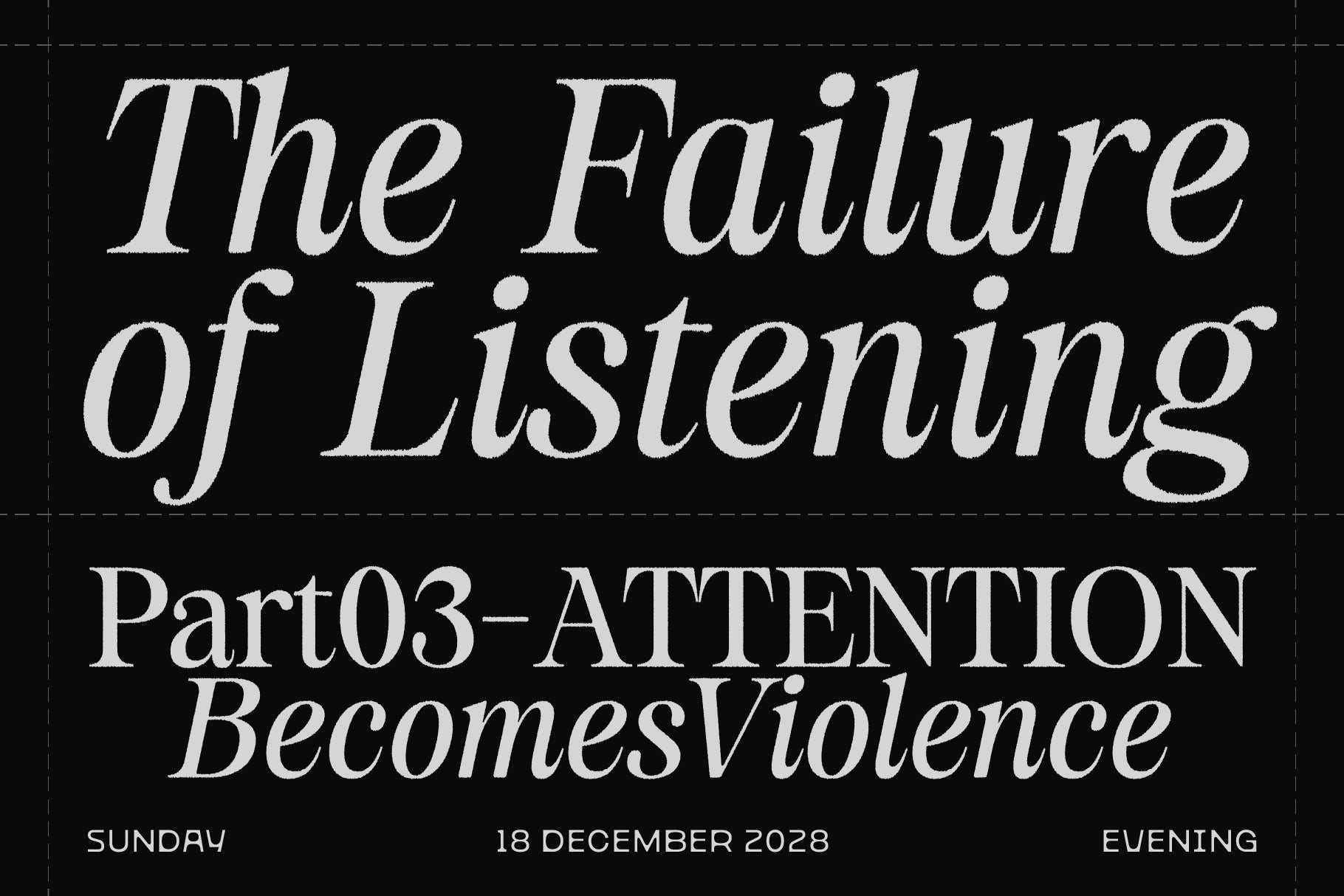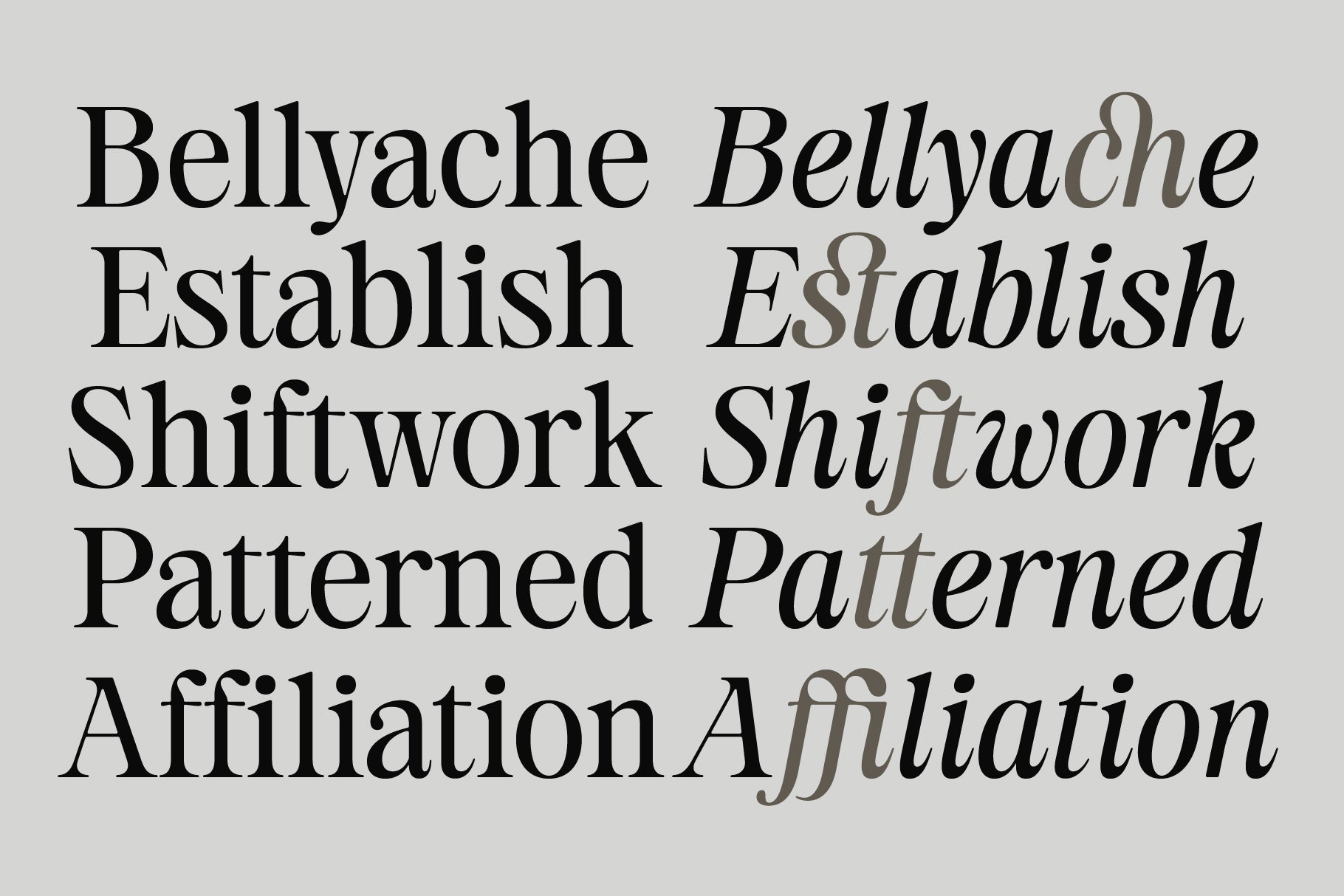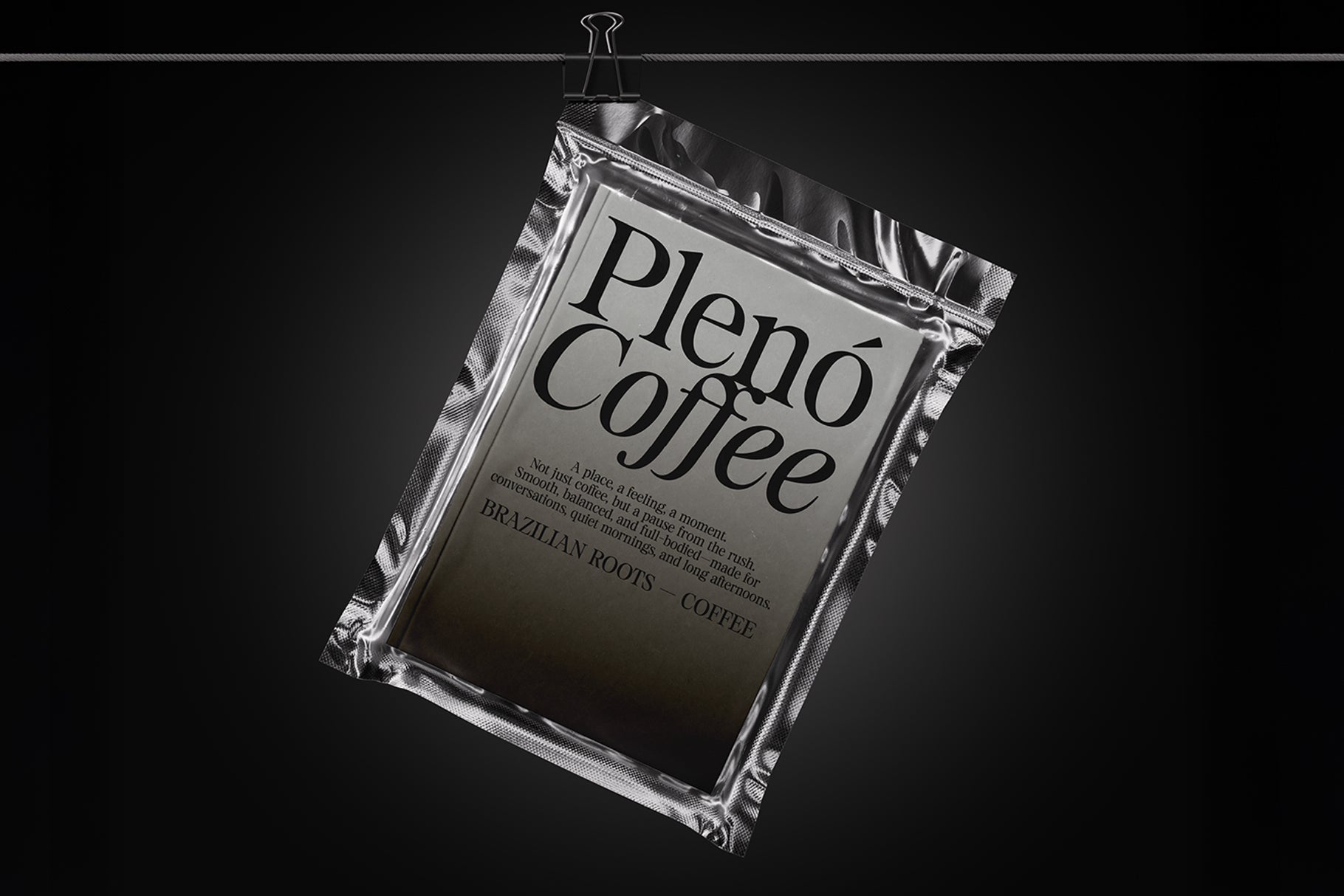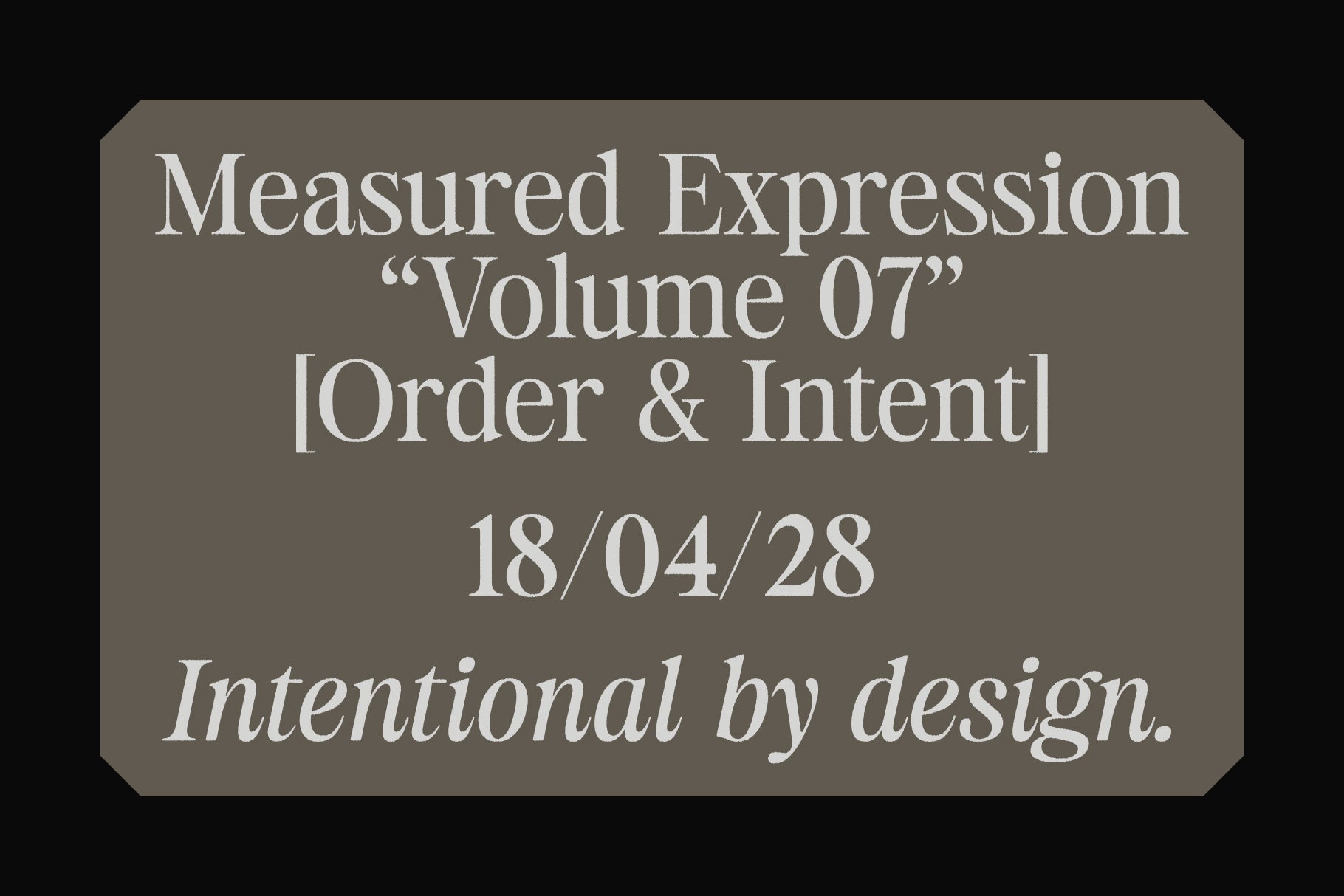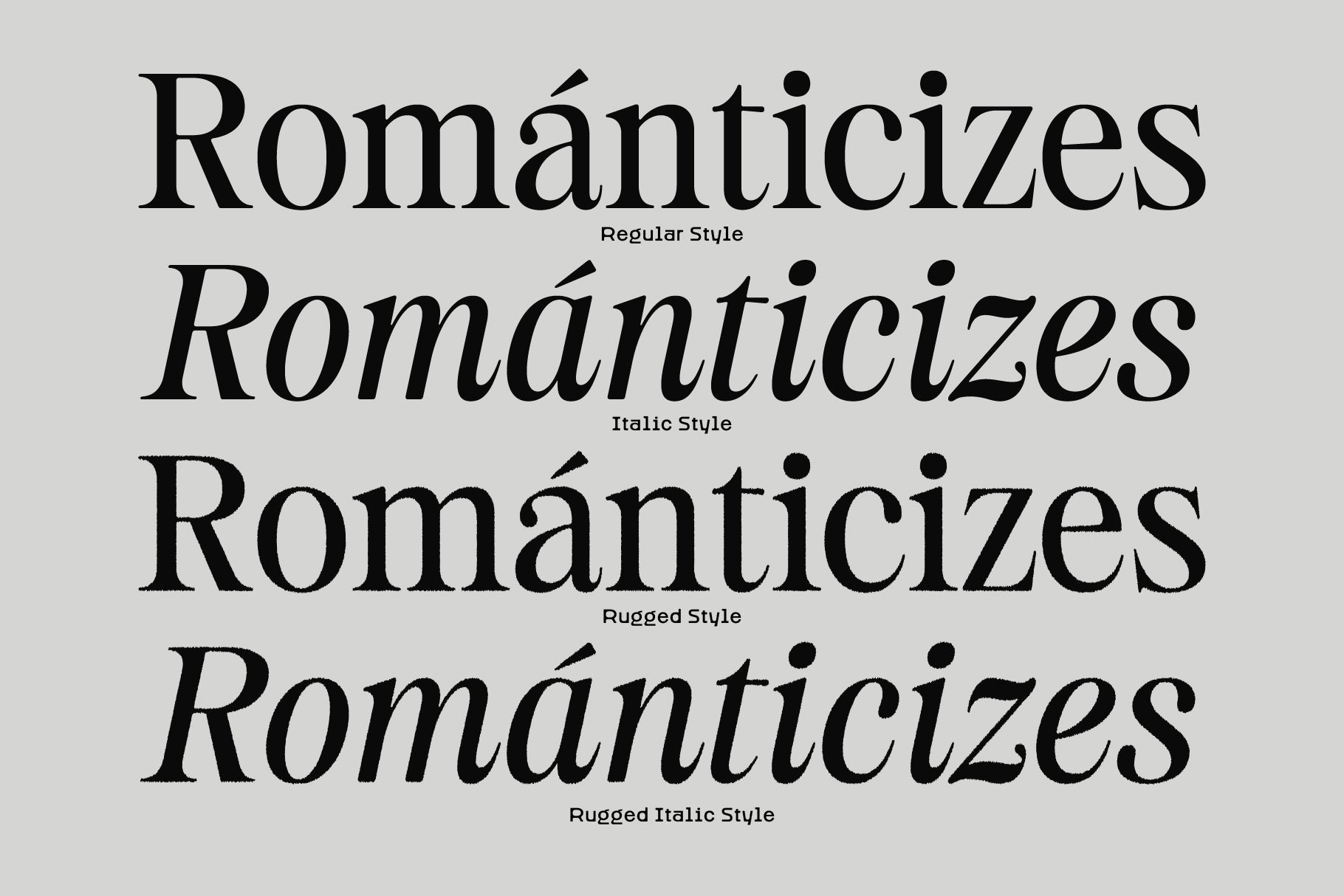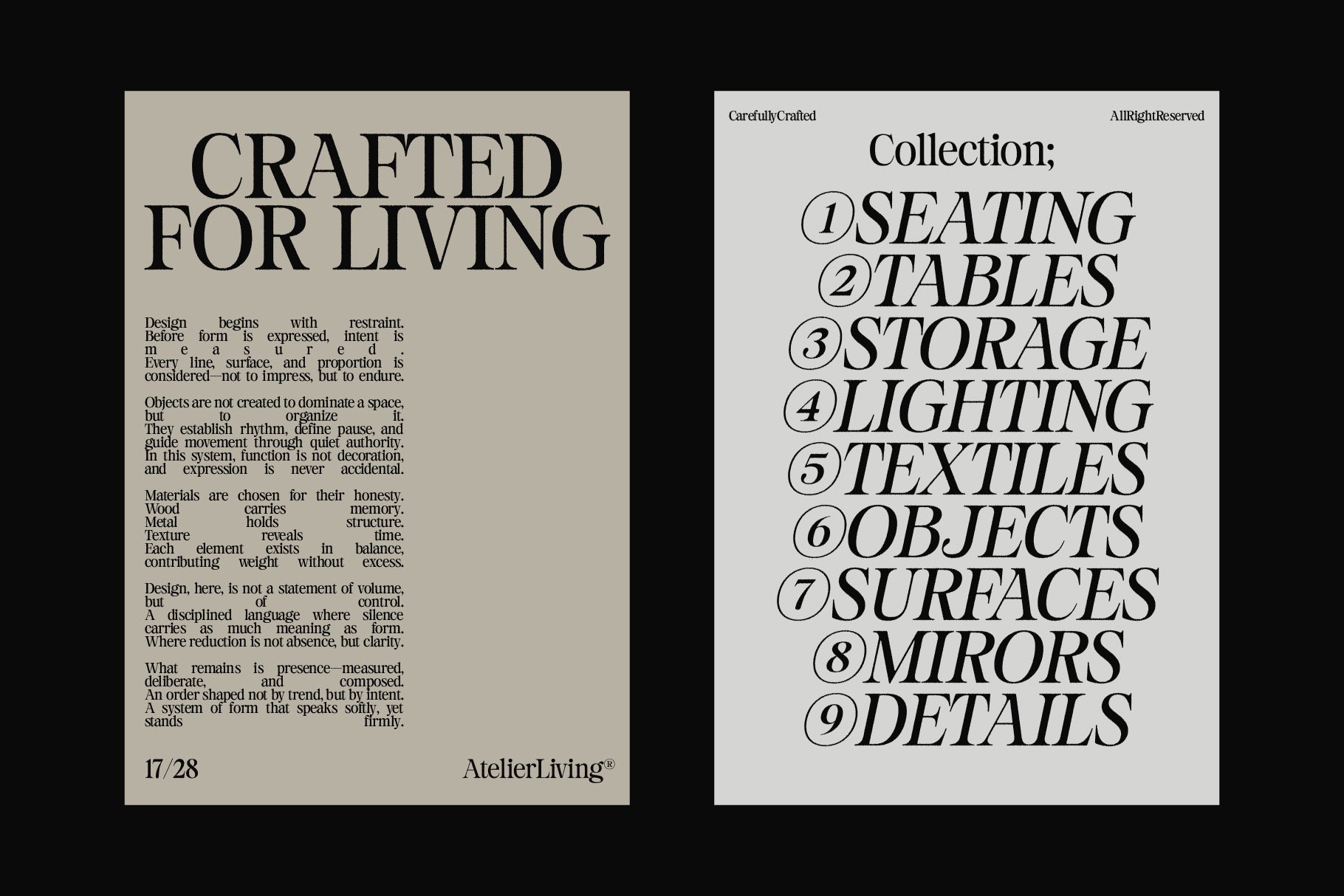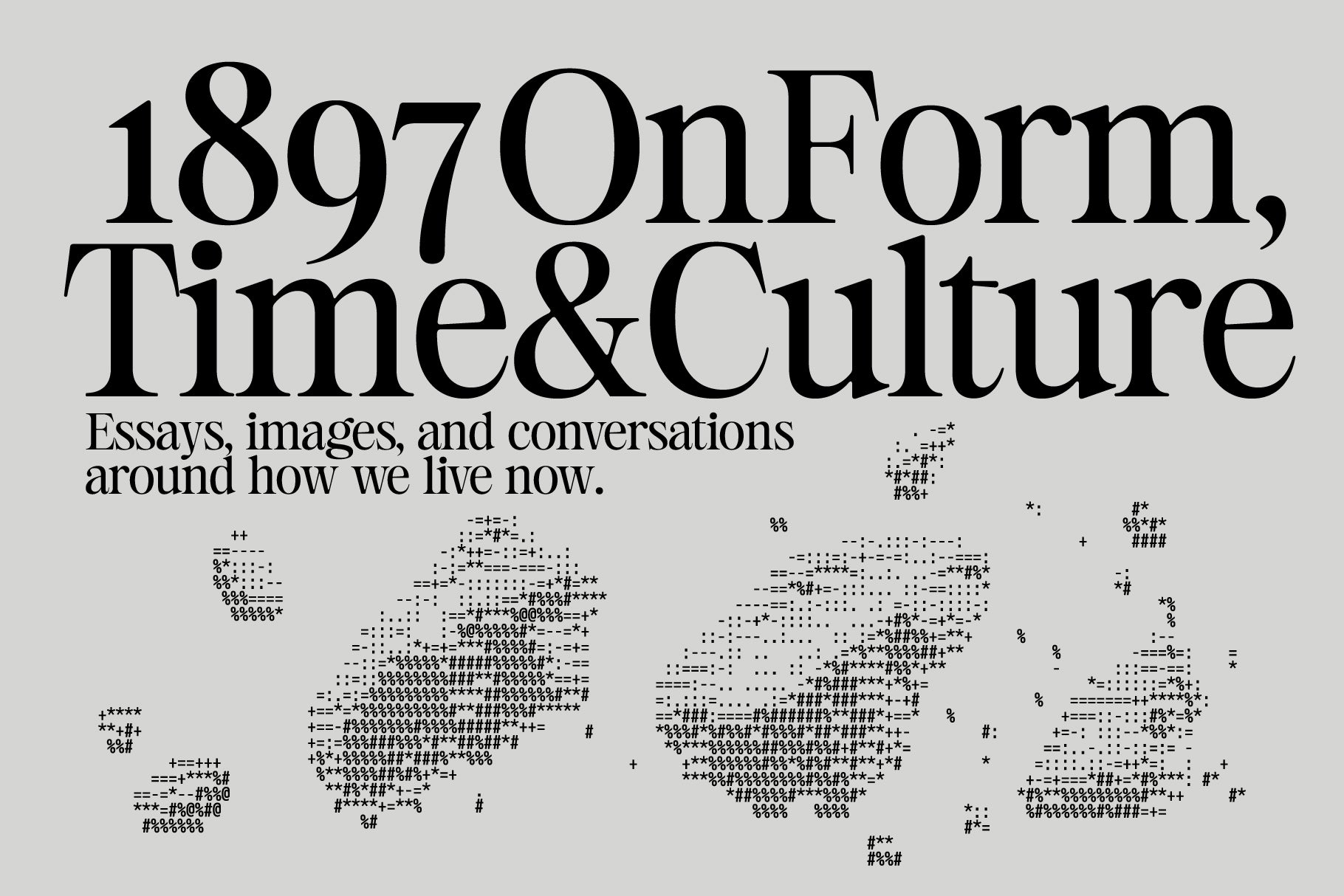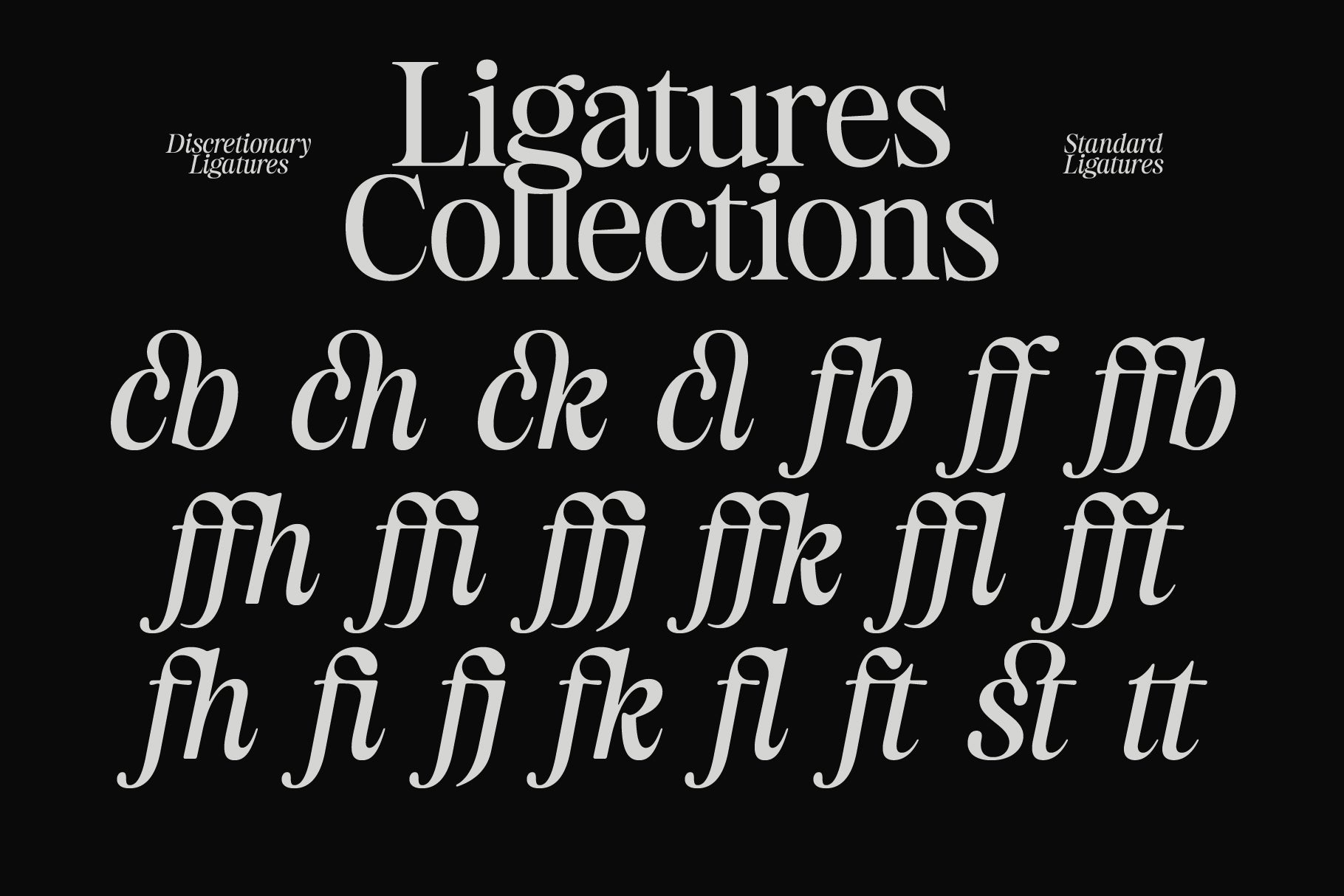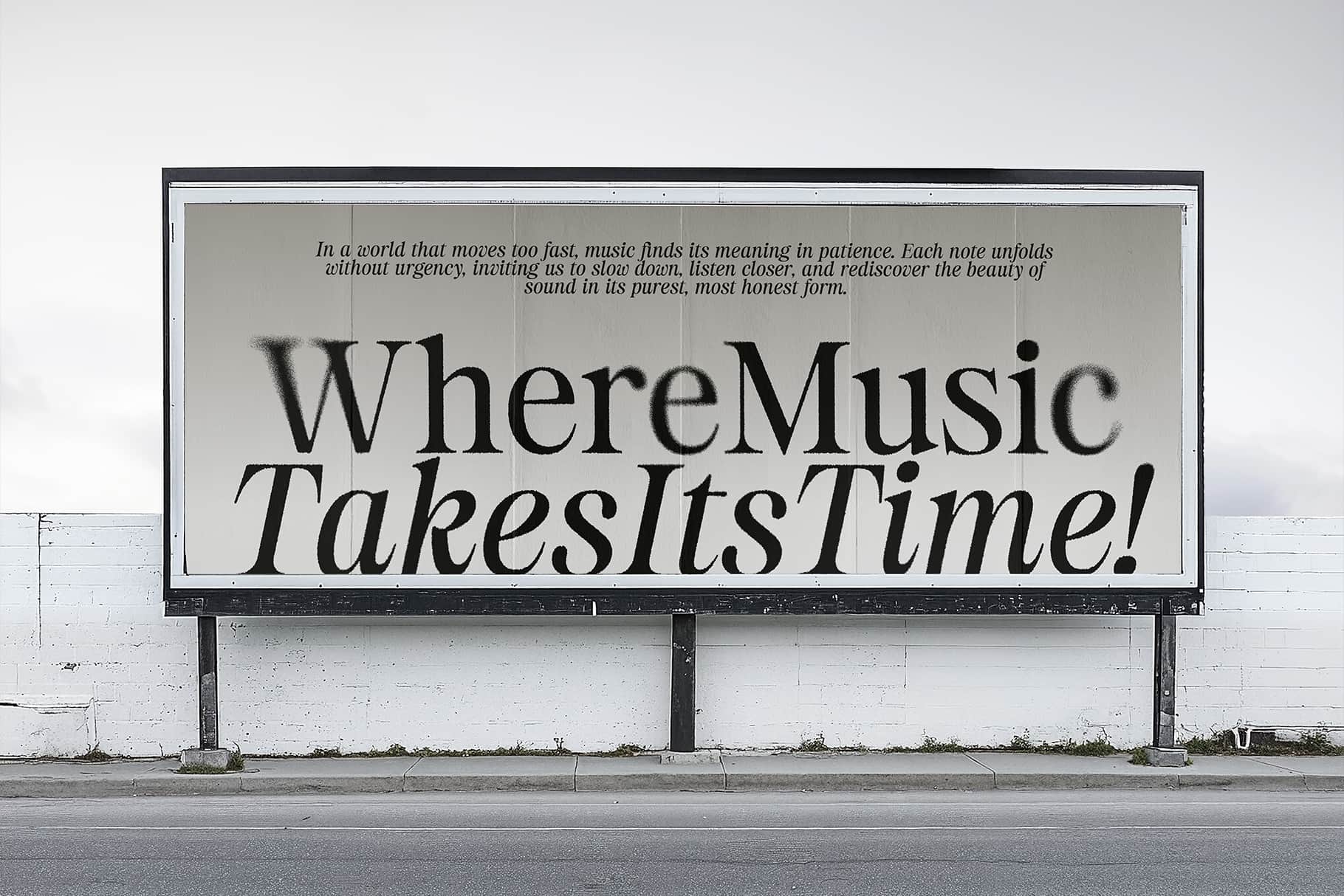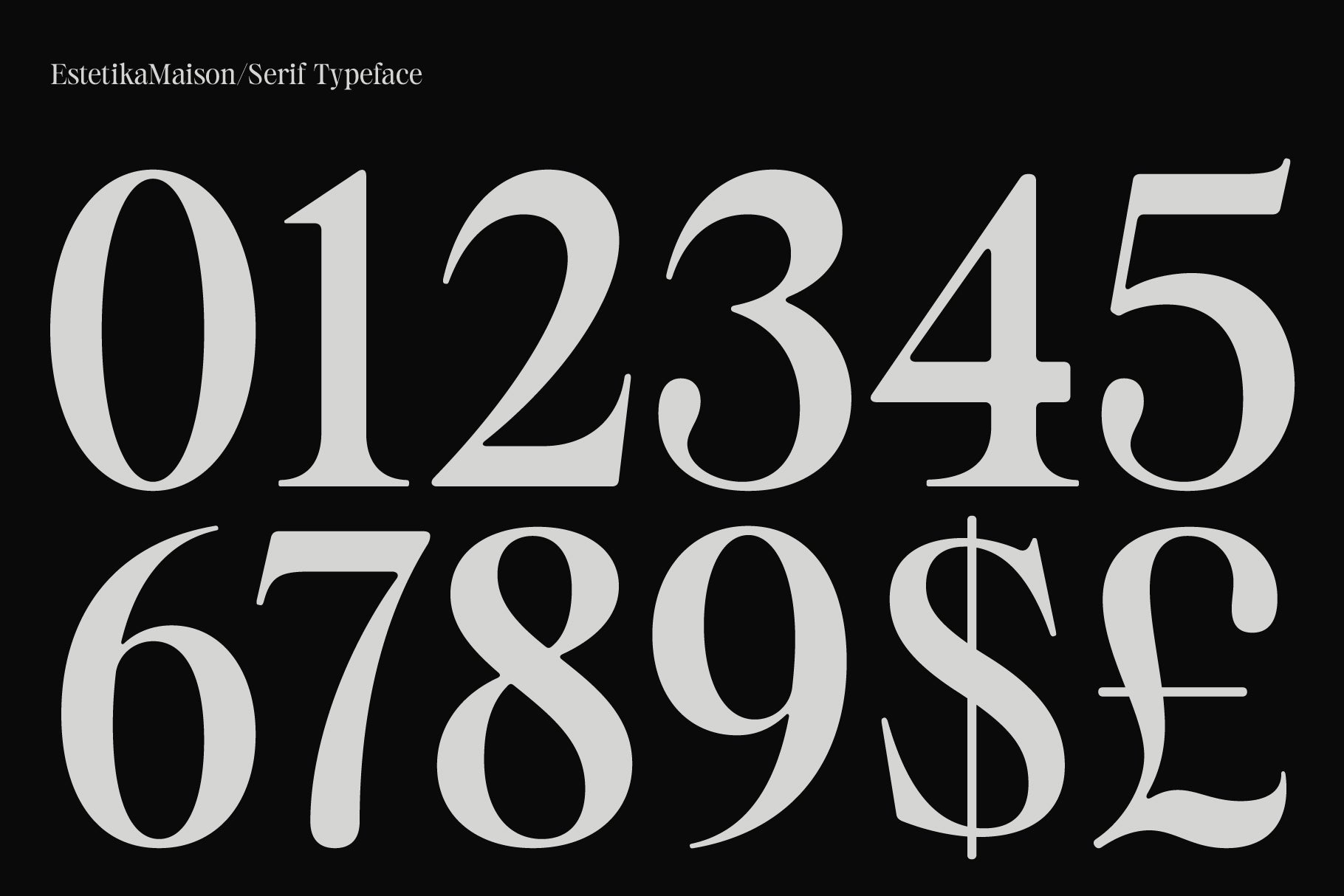
Estetika Maison Typeface TNSC
The Native Saint Club
Estetika Maison is a modern editorial serif inspired by the resurgence of retro aesthetics — designed for work that wants to feel timeless without looking borrowed from the past. Strong contrast, refined details, and expressive italics give it a nostalgic character that stays clean, elegant, and thoroughly contemporary in execution.
The four included styles offer genuine design range — from composed editorial text to expressive display use — while maintaining the cohesive, high-end appearance that makes Estetika Maison equally at home in luxury branding, magazine layouts, sophisticated packaging, and logo design.
• 641 Glyphs
• 4 Styles (Regular, Italic, Ruged, Ruged Italic)
• Lowercase
• Diacritics
• Ligatures
• Numerals (4 sets)
• Symbols
• Currency
• Mathematics
• Arrows